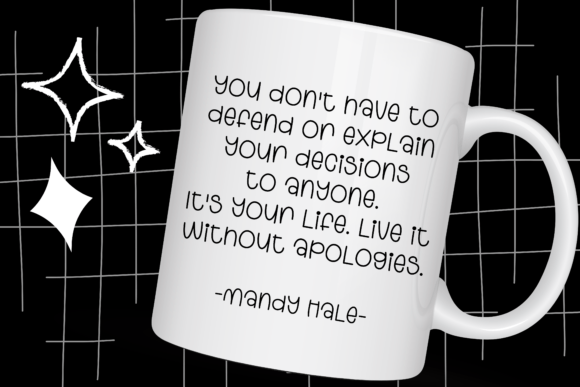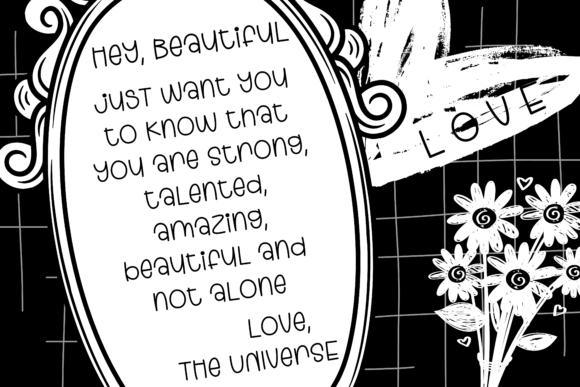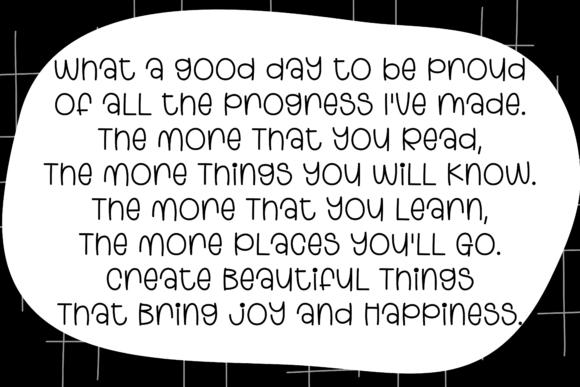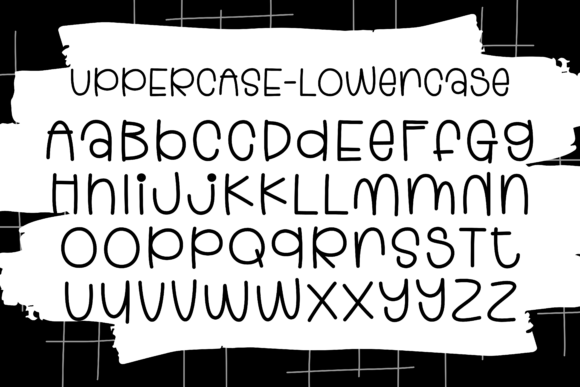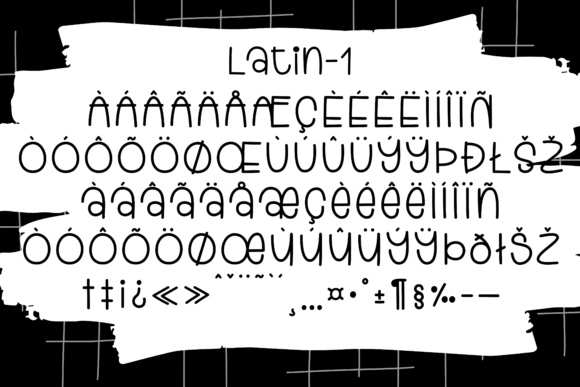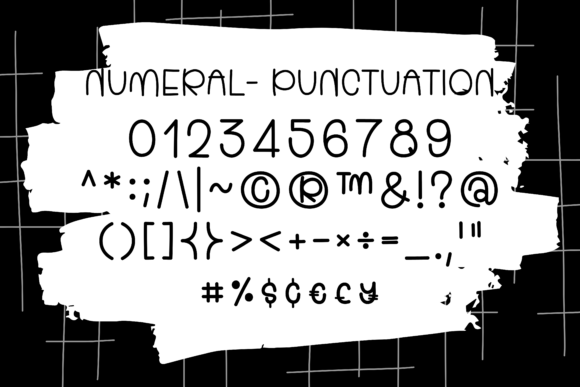
Introducing Figure Font: The Playful and Friendly Handwritten Sans Serif Font
Are you looking for a font that can add a touch of playfulness and friendliness to your designs? Look no further than Figure Font, a beautifully crafted handwritten sans serif font that’s perfect for a wide range of creative projects. In this article, we’ll take a closer look at Figure Font, its features, and how you can use it to bring your DIY projects to life.
What is Figure Font?
Figure Font is a unique and charming handwritten sans serif font that’s designed to add a personal touch to your designs. Its playful and friendly style makes it perfect for projects that require a lighthearted and approachable feel. Whether you’re working on a fun project, a diary planner, or a creative endeavor, Figure Font is sure to impress.
Key Features of Figure Font
- Playful and Friendly Style: Figure Font boasts a playful and friendly style that’s perfect for adding a personal touch to your designs.
- Handwritten Sans Serif Font: This font features a beautiful handwritten sans serif style that’s both elegant and approachable.
- Versatile: Figure Font is perfect for a wide range of creative projects, from Easter and back to school designs to wedding and party decorations.
Figure Font is an incredibly versatile font that can be used for a wide range of creative projects. Here are some ideas to get you started:
- Easter Designs: Add a playful touch to your Easter designs, such as egg decorations, bunny invitations, and spring-themed posters.
- Back to School: Create fun and engaging back to school designs, including planners, stickers, and classroom decorations.
- Wedding and Party Decorations: Use Figure Font to create beautiful wedding invitations, party decorations, and other celebratory designs.
- Fall, Halloween, and Christmas: Get into the holiday spirit with Figure Font, perfect for creating festive designs, such as pumpkin decorations, Halloween posters, and Christmas cards.
- Posters, Blogs, and Social Media Posts: Add a friendly touch to your posters, blogs, and social media posts with Figure Font.
- Clothing and Child-Related Designs: Use Figure Font to create adorable clothing designs, children’s book illustrations, and other kid-friendly projects.
- Greeting Cards: Create personalized greeting cards for any occasion with Figure Font.
Why Choose Figure Font?
- Unique and Playful Style: Figure Font offers a unique and playful style that’s sure to stand out from the crowd.
- Easy to Read: This font is easy to read, making it perfect for designs that require a clear and concise message.
- Versatile: Figure Font can be used for a wide range of creative projects, making it a great addition to your font library.
In conclusion, Figure Font is a beautiful and versatile handwritten sans serif font that’s perfect for adding a playful and friendly touch to your designs. With its unique style, ease of use, and versatility, Figure Font is a great choice for designers and crafters looking to bring their DIY projects to life. So, why wait? Add Figure Font to your font library today and start creating!